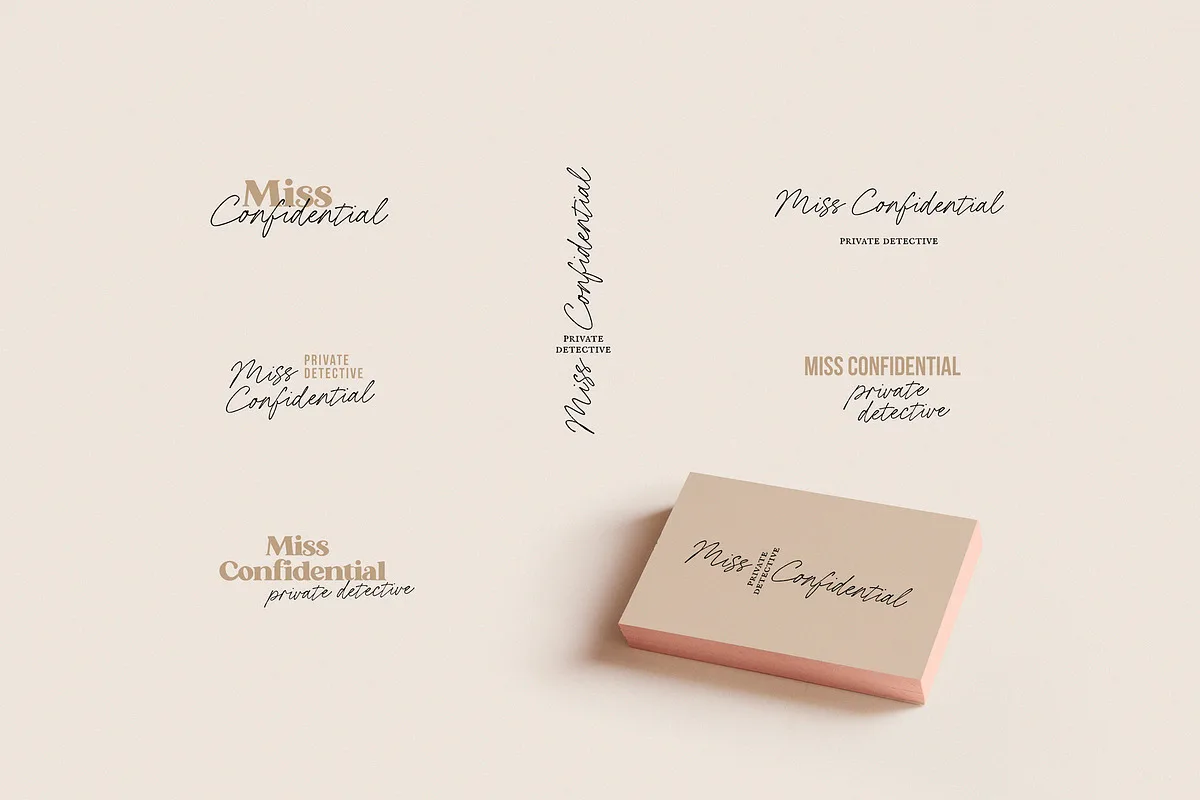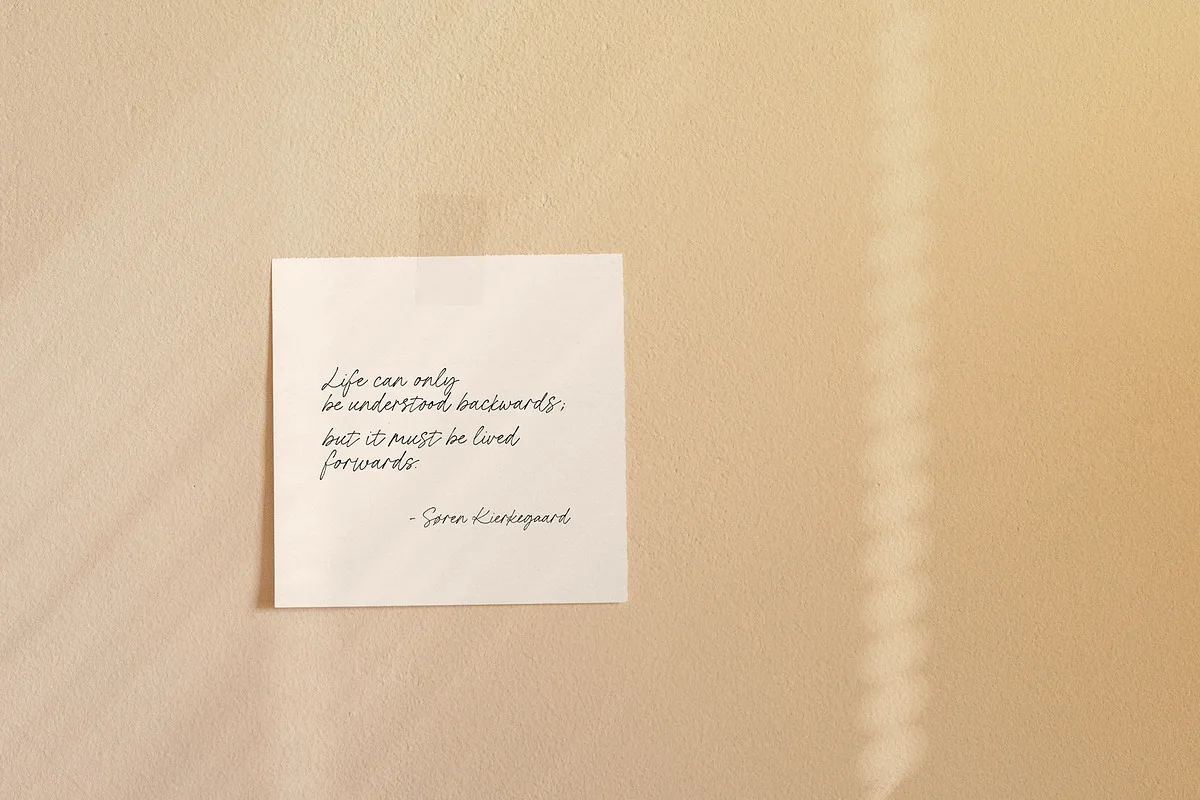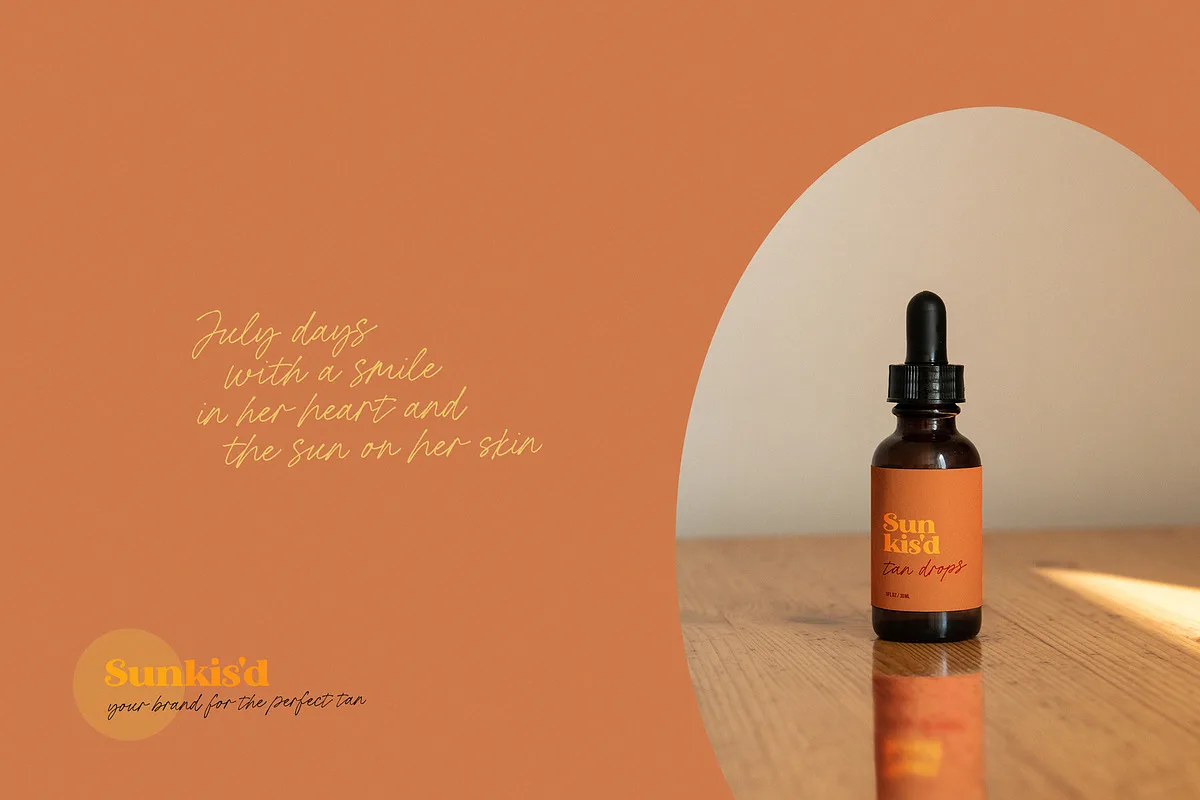
Thank you for dropping by! It is my pleasure to introduce you to Miss Confidential – a casual but classy handwritten script that’s perfect for adding that warm, organic, handmade touch to your designs. She can be inconspicuous if you want her to – a love note in the corner, a quick signature… But if needed, she isn’t afraid of taking center stage either and being the main element of your design. Whatever she does, she does it with impeccable style! She is your girl for logos, wedding invites, product packaging, cards, quotes, social media material, and more.
The original Miss Confidential is a bit rough around the edges, giving her that charming pen on paper look. But she is versatile and will also transform into a Smooth version whenever the situation calls for perfectly smooth & clean outlines.
To achieve that authentic handwritten feel, Miss Confidential comes with a full set of lowercase alternates as well as 40+ ligatures, giving you plenty of variety and options. If you use software that supports OpenType, everything is included in the main font. If not, all Alternates and Ligatures can be accessed through the Alt & Liga fonts.
Multilingual support: English, French, German, Italian, Spanish, Catalan, Danish, Dutch, Finnish, Norwegian, Portuguese and Swedish. Language support includes accented versions of alternates & ligatures.